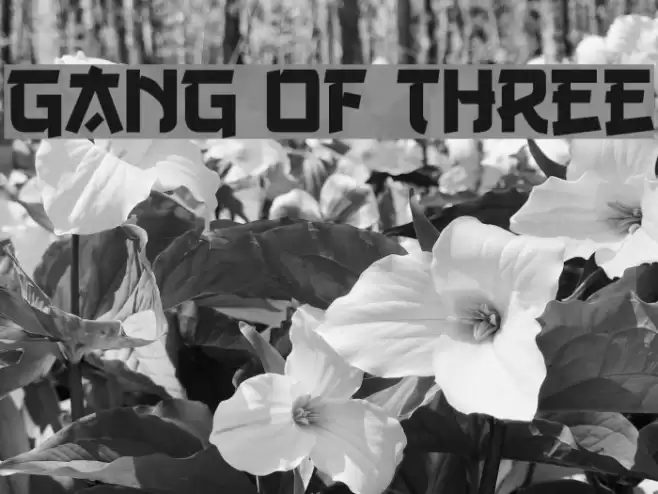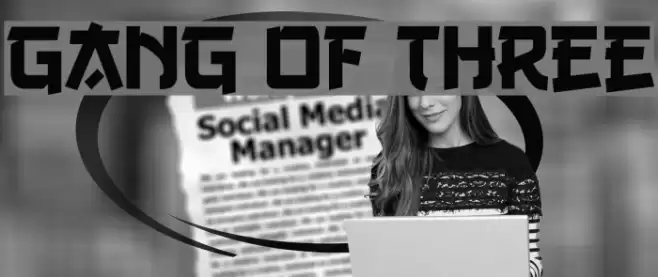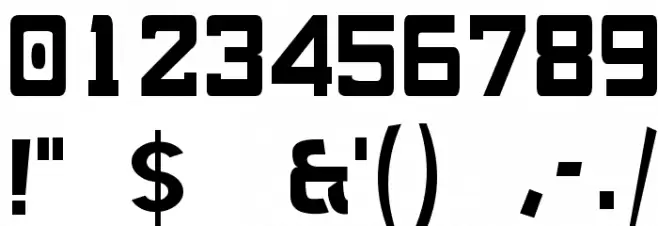
Gang of Three Font
Gang of Three Description
This font features a bold and striking design with angular, geometric shapes that create a sense of movement and energy. The uppercase letters are particularly distinctive, with sharp edges and a slightly futuristic feel. The numbers and special characters maintain this bold style, ensuring consistency across all elements. The font's unique style makes it stand out, making it suitable for projects that require a strong visual impact.
A bold, angular font with a futuristic and energetic style from Asian fonts.
- Proposed Projects: Ideal for branding, posters, video game graphics, and any project needing a bold, impactful typeface.